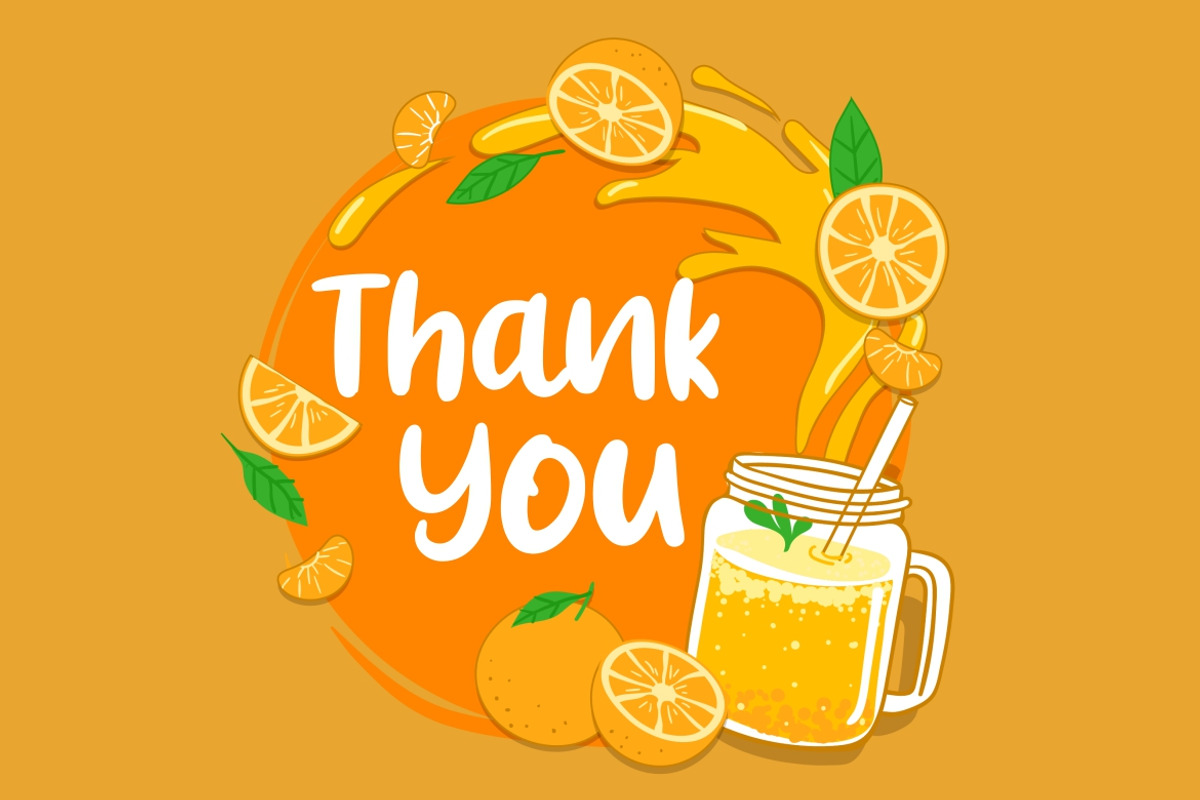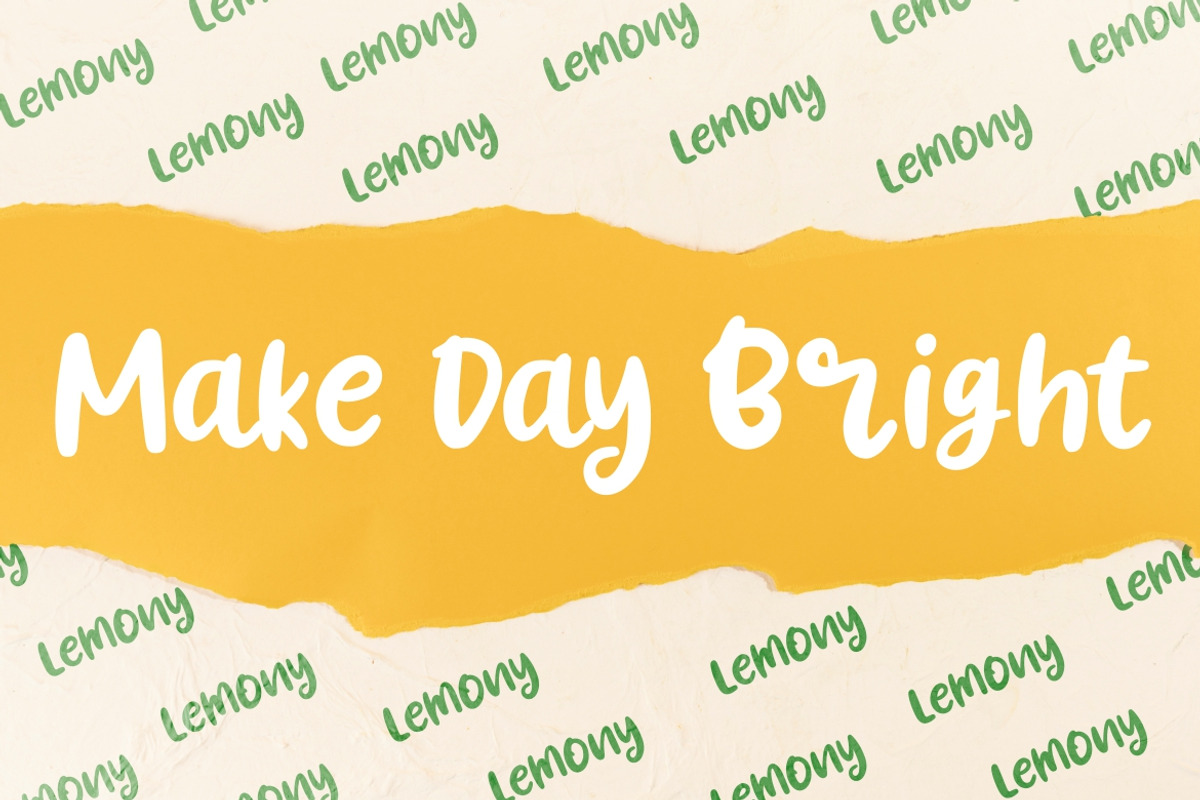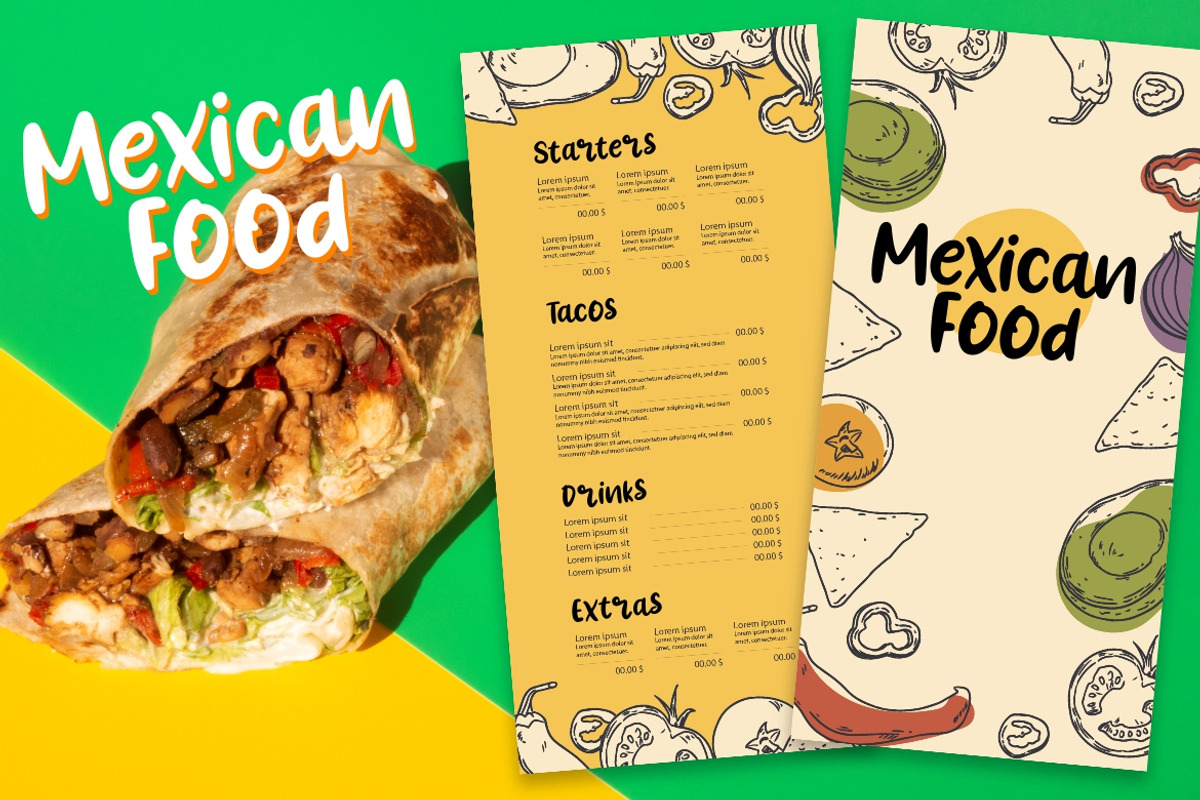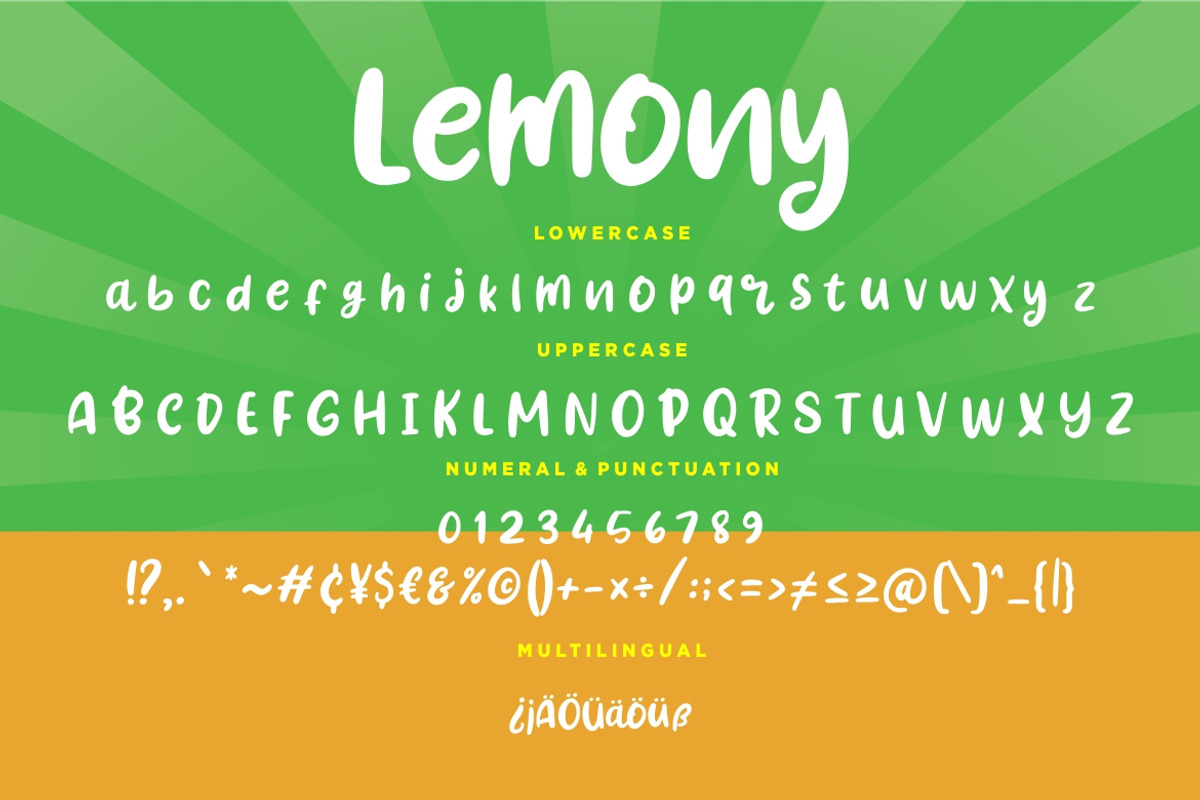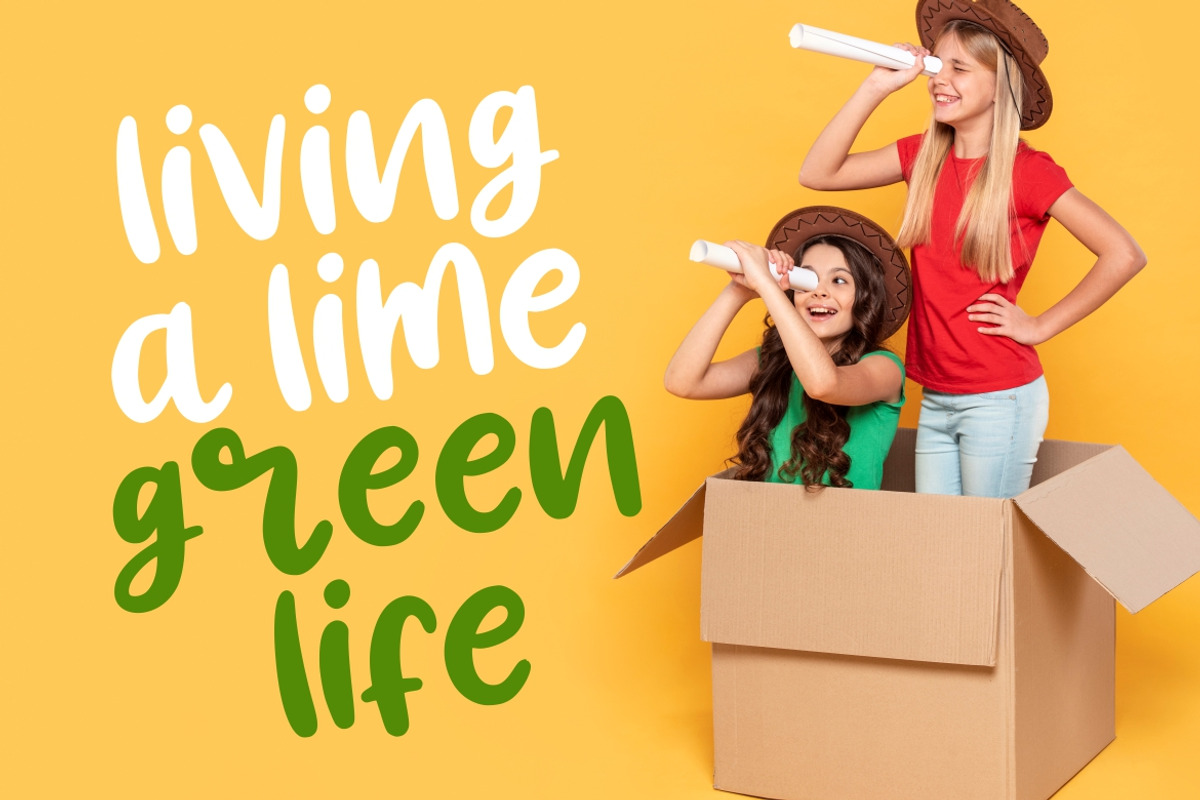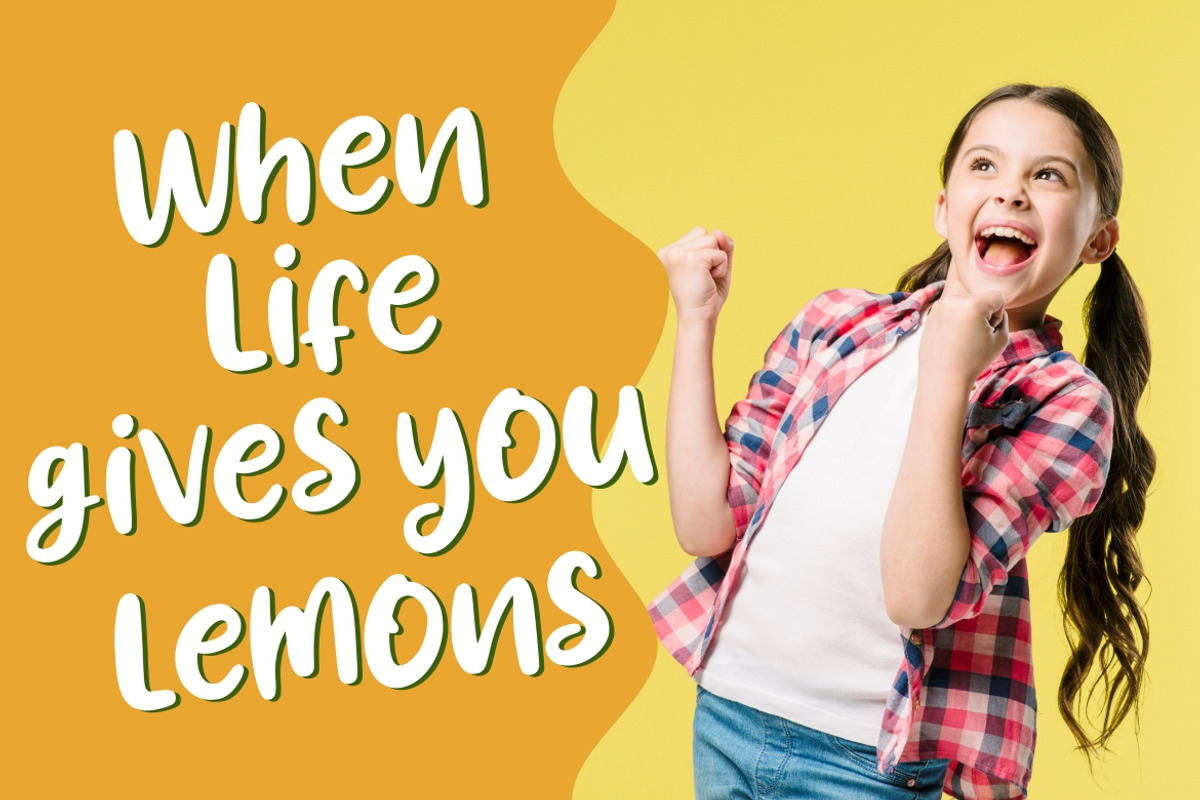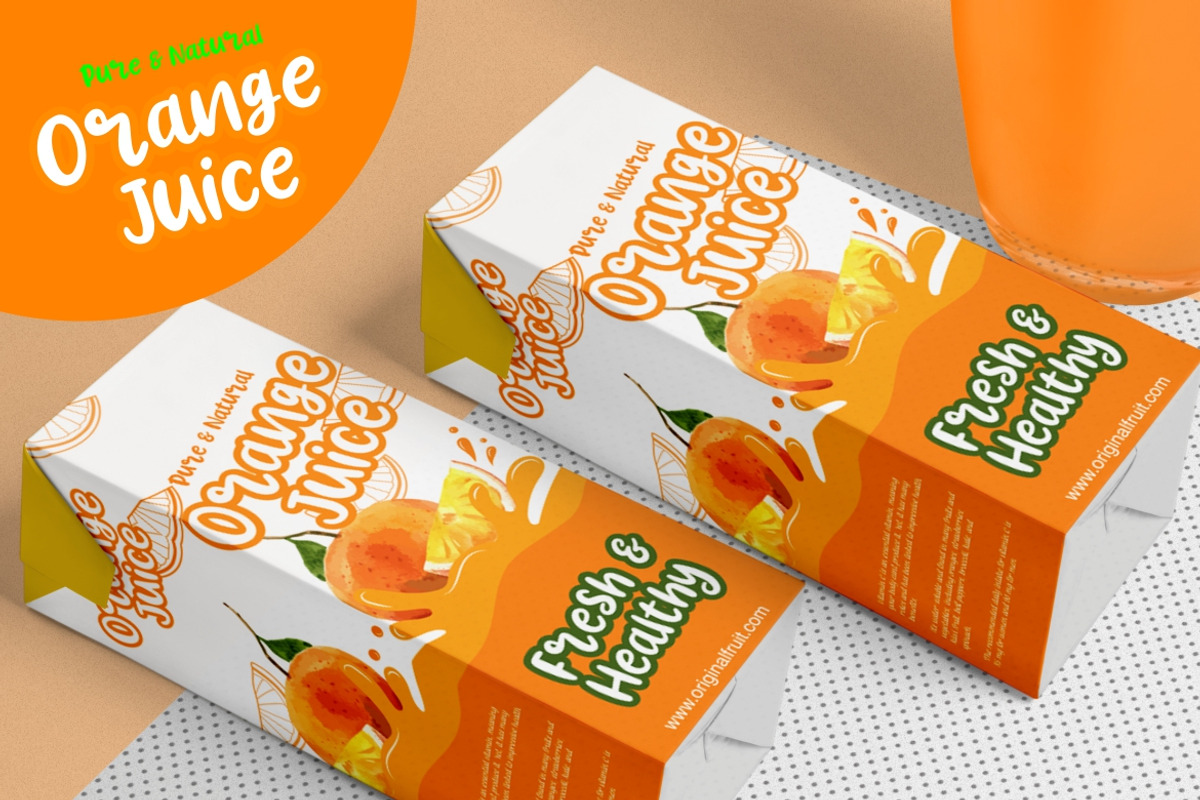
Lemony Fun Business Font
Lemony is playful display font which suitable to use for children related occasion.
Lemony is perfect for branding projects, logo, wedding designs, social media posts, advertisements, product packaging, product designs, label, photography, watermark, invitation, stationery and any projects that need handwriting taste.
- Fonts include multilingual support for; ä ö ü Ä Ö Ü ß ¿ ¡
Lemony Fun Business Font by Creatype Studio fits naturally into Branding, posters, packaging, typography.